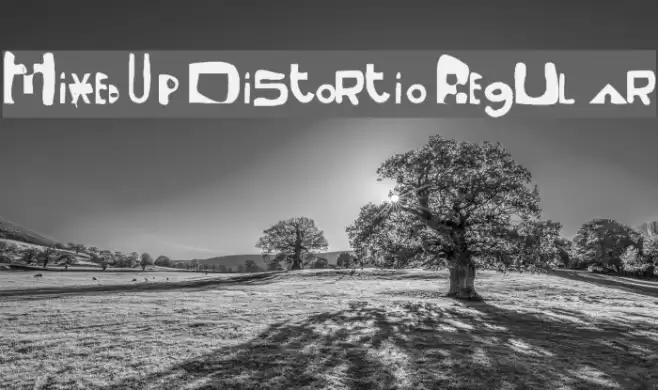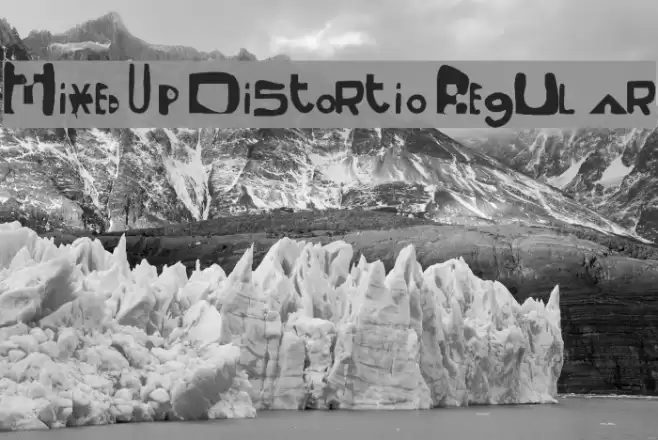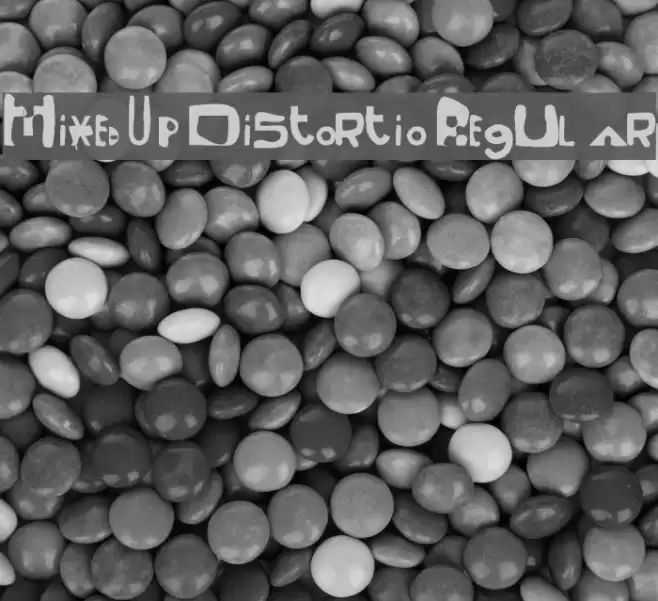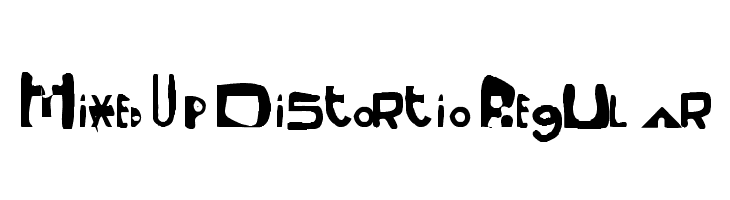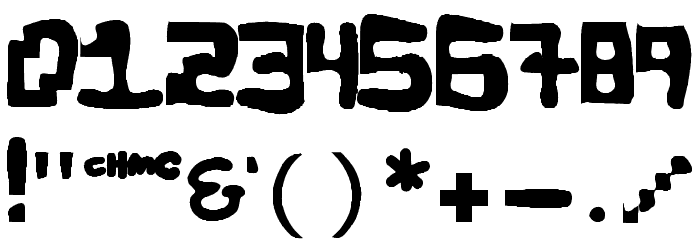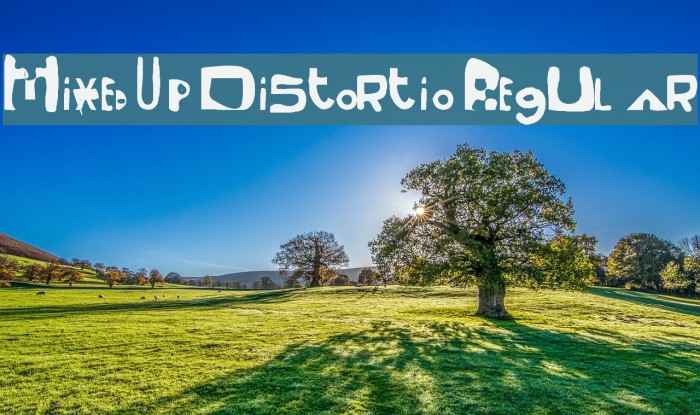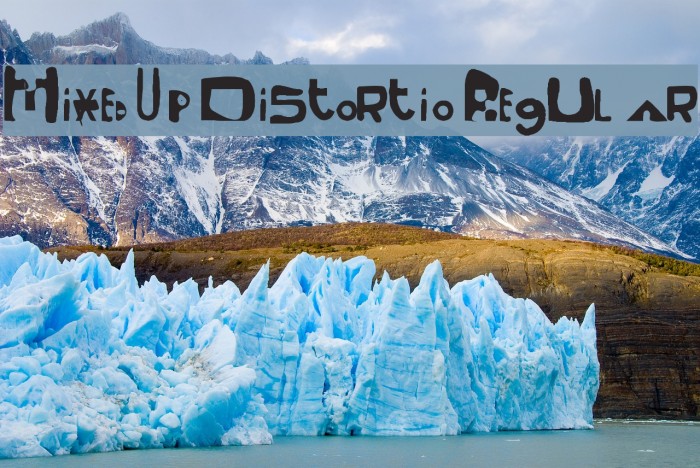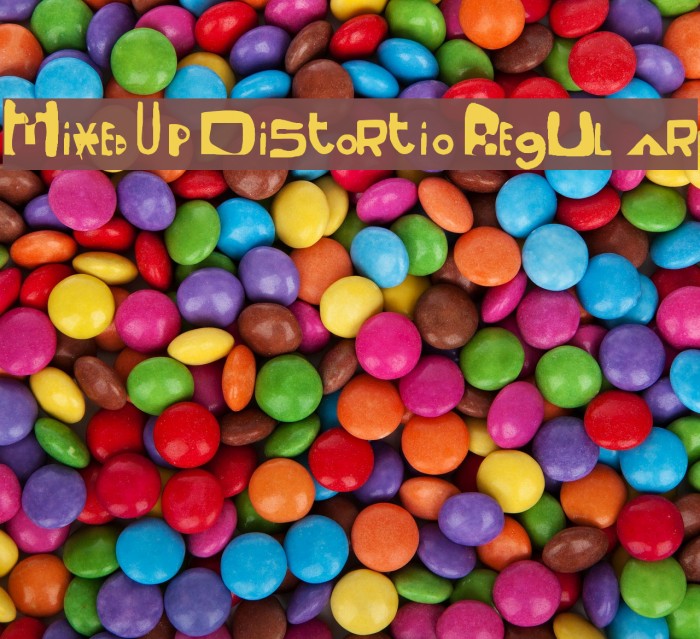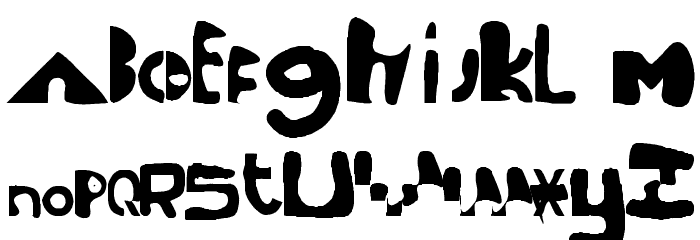
Mixed Up Distortio Regular Font
Mixed Up Distortio Regular Description
This font features a highly distorted and abstract design, characterized by irregular shapes and uneven strokes. Each character appears to be uniquely warped, creating a sense of movement and unpredictability. The letters are bold and have a playful, almost chaotic appearance, making them stand out in any design. The numbers and special characters follow the same distorted style, ensuring consistency throughout the typeface. This font is ideal for projects that require a unique and eye-catching aesthetic, as it breaks away from traditional font structures and embraces a more artistic approach.
A distorted and abstract font with bold, irregular shapes and a playful style from Uncategorized fonts.
- Proposed Projects: Ideal for artistic posters, album covers, experimental design projects, and creative branding.
- Overall Style: Modern, Artistic